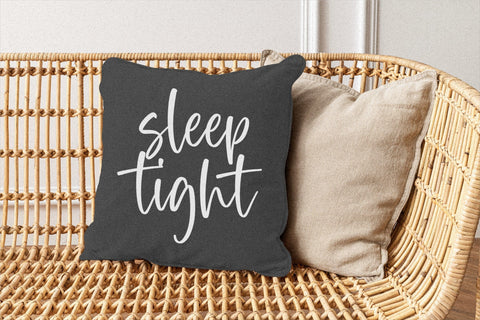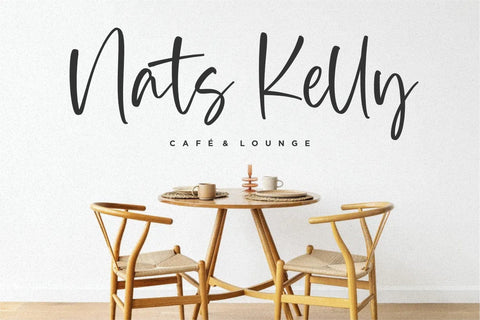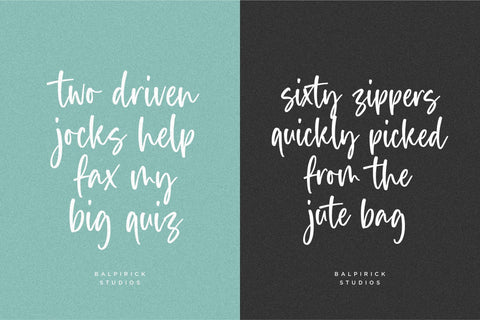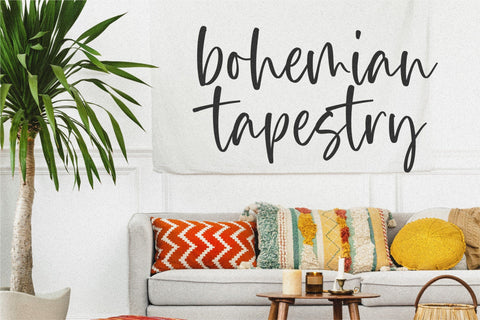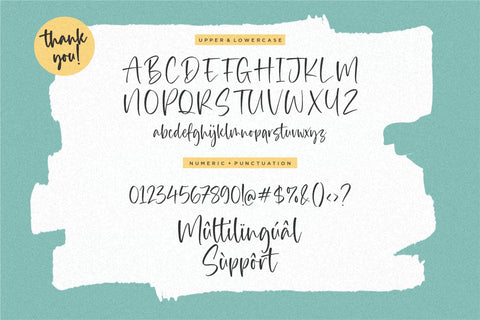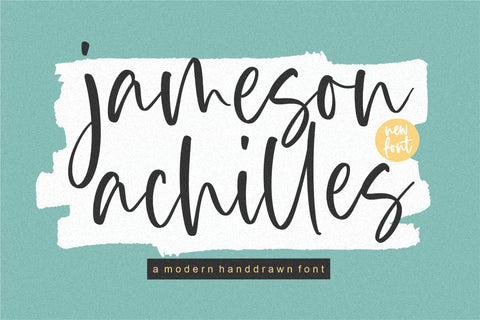
Jameson Achilles a Modern Handdrawn Font
Jameson Achilles is a Modern Handdrawn Font.
Whether you’re using it for crafts, digital design, presentations, or making greeting cards, this font has the potential to become your favorite go-to font, no matter the occasion!